Unusual Halloween Fonts for Creative Crafts and Seasonal Designs
Unusual Halloween fonts can turn a basic phrase into the strongest visual element in a shirt, invitation, sign, or party printable. I looked beyond standard dripping letters and sharp horror typefaces to find designs shaped like ghosts, mummy wraps, flames, cobwebs, crooked handwriting, chunky cartoons, and strange vintage movie titles.
The best unusual Halloween fonts combine a clear silhouette with one memorable visual idea. Wonky Halloween is my top playful pick, Creepy Halloween Witches suits detailed statement lettering, and Elastika delivers a striking retro-horror look. For cleaner crafts, Hellaween and Ghost Walker provide personality without making short phrases difficult to read.
| Font | Best for | Format or style |
|---|---|---|
| Wonky Halloween | Playful party crafts | Hand-drawn display font |
| Creepy Halloween Witches | Detailed statement words | Decorative display font |
| Elastika | Retro horror posters | Cinematic display font |
| Spooky Webbie | Cobweb-themed designs | Decorative display font |
| The Mummy Returns | Mummy party themes | Quirky display family |
| Drippy Message | Slime and horror titles | Dripping display font |
| Cute Ghost | Kid-friendly crafts | Whimsical display font |
| Night Witch Halloween | Dark book covers | Sinister display font |
Unusual Halloween Fonts for Distinctive Seasonal Designs
1. Wonky Halloween Font
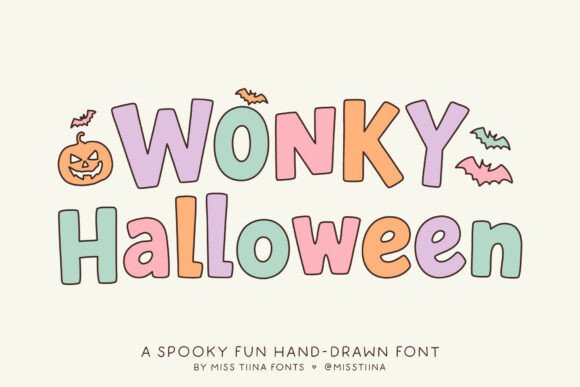
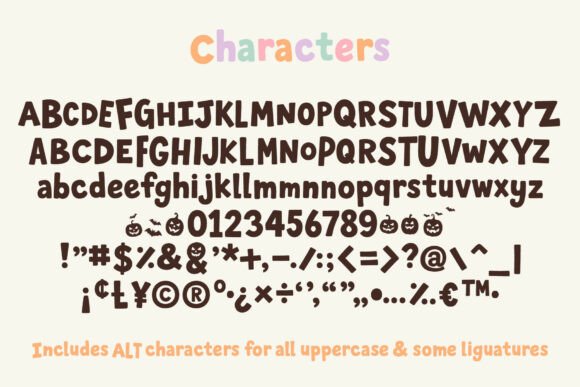
Wonky Halloween is a hand-drawn display font for cheerful projects that need crooked character without becoming genuinely frightening. Its uneven letters and Halloween dingbats give invitations, treat bags, classroom signs, and childrenโs shirts an intentionally homemade personality.
This is my pick for designers who want the lettering itself to feel illustrated. The irregular construction is engaging in short phrases, although I would pair it with a plain sans serif when a project includes dates, addresses, or detailed instructions.
Best for: party invitations, classroom crafts, trick-or-treat signs
Key features: hand-drawn letters, crooked baseline, pumpkin and bat dingbats
2. Creepy Halloween Witches Font
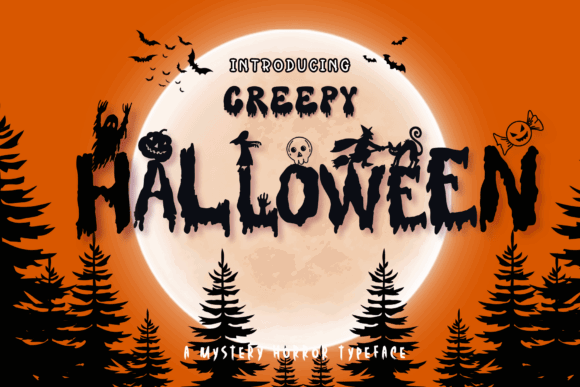
Creepy Halloween Witches is a highly decorative display font for bold words that need built-in seasonal imagery. The letters contain varied Halloween-inspired details, making even a simple word such as โBewareโ or โWitchesโ feel like a finished graphic.
I like it most for oversized lettering where viewers can appreciate the interior details. It may lose clarity when reduced for small labels, so I would reserve it for focal words on posters, shirts, porch signs, and party backdrops.
Best for: statement shirts, porch signs, party backdrops
Key features: detailed characters, alternate letterforms, decorative Halloween motifs
3. Elastika Font
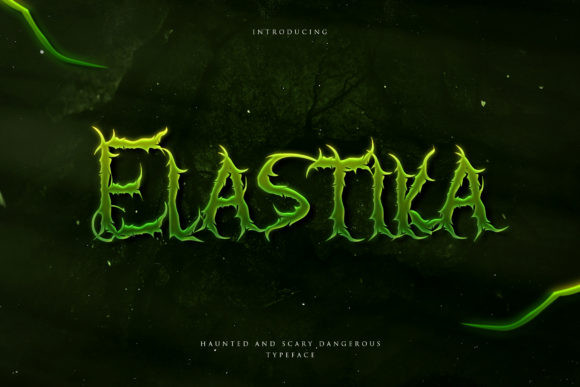
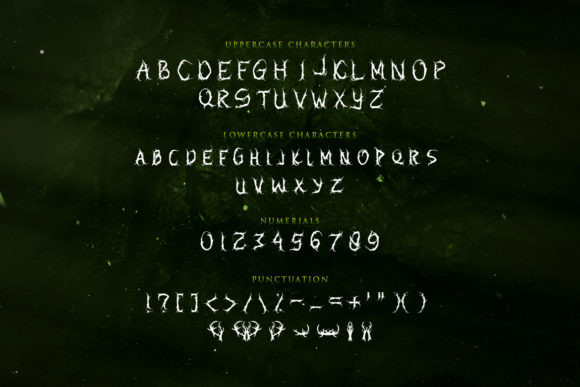
Elastika is a distorted display font for projects inspired by vintage monster movies and strange theatrical posters. Its stretched, animated characters create tension without using predictable blood drops, bones, or carved-pumpkin decorations.
This is one of my strongest choices for a design that should feel eerie rather than cute. The unusual proportions make it best for titles and short phrases; a restrained supporting font will keep the remaining information easy to scan.
Best for: retro horror posters, movie-night invitations, book covers
Key features: distorted proportions, vintage horror mood, expressive silhouettes
4. The Mummy Returns Font
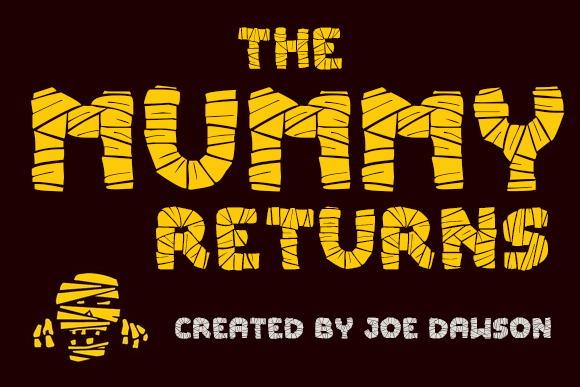
The Mummy Returns is a quirky display family for Egyptian mummy themes, wrapped-character headlines, and lighthearted monster designs. Its playful construction makes it suitable for family parties and childrenโs crafts rather than graphic horror artwork.
I would use it for one prominent title and let the letter texture establish the theme. Because the font includes strong visual movement, generous spacing and a quiet background will help the phrase remain readable from a distance.
Best for: mummy parties, themed shirts, October classroom displays
Key features: quirky display shapes, regular and italic styles, playful monster tone
5. Spooky Webbie Font
Spooky Webbie is a decorative display font for projects where cobwebs need to be part of the lettering rather than added as separate graphics. Its web-filled characters suit haunted-house signs, tote bags, apparel, and October wall art.
What is the difference between a Halloween font and a dingbat font?
u003cstrongu003eA Halloween display font types readable letters, while a dingbat font maps keyboard characters to decorative icons such as ghosts, bats, or pumpkins.u003c/strongu003e Dingbats are useful for borders and accents but usually require a second font for the actual message. Some packages include both lettering and matching ornaments.